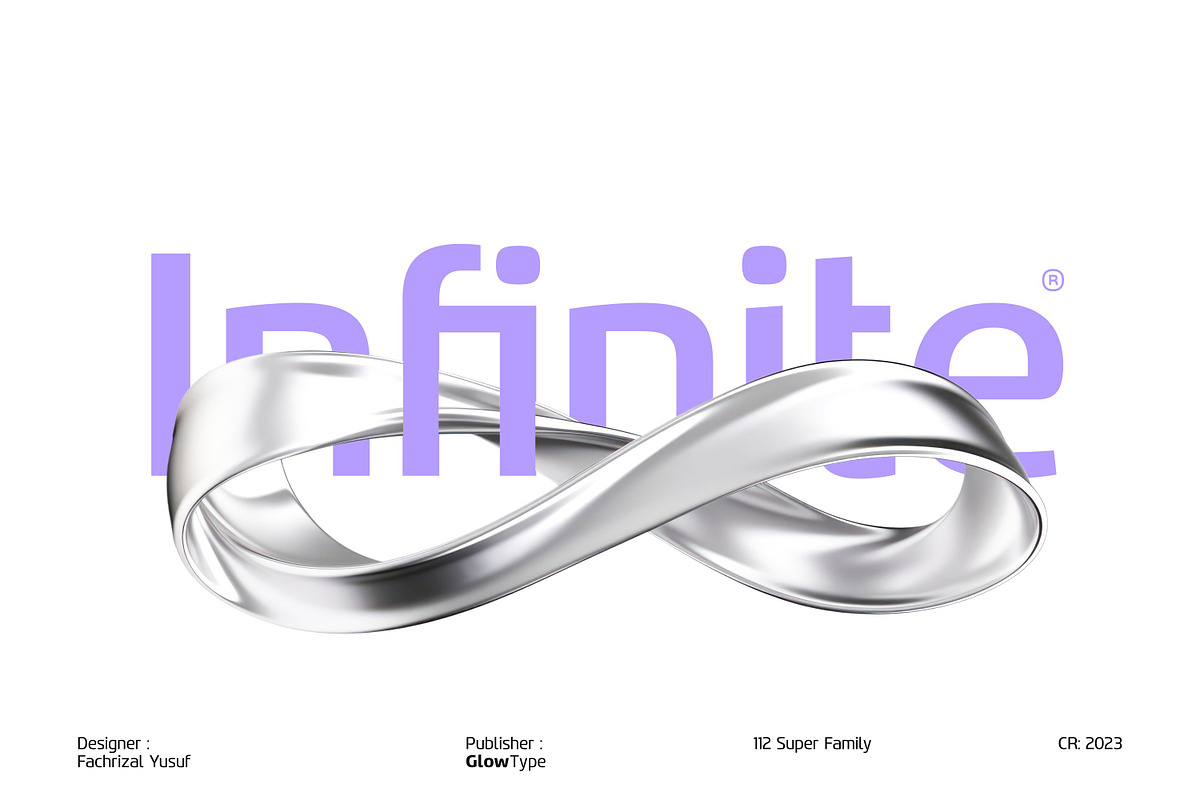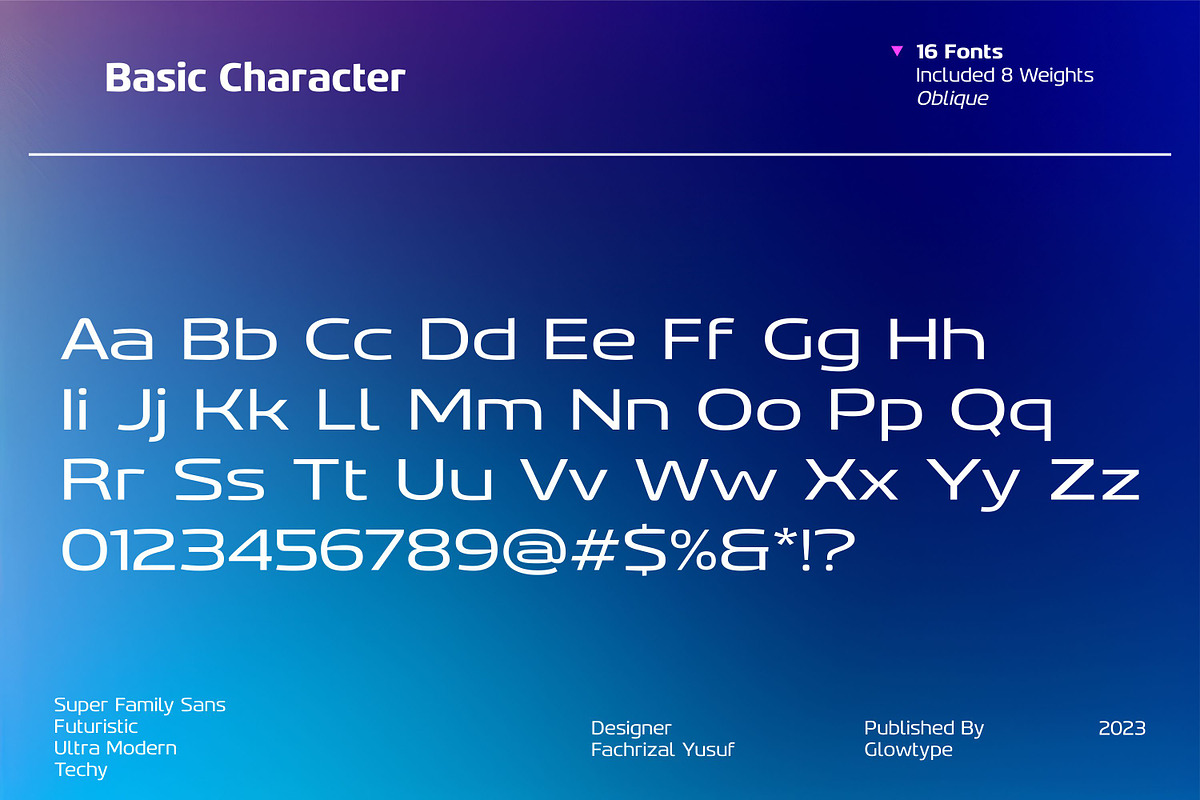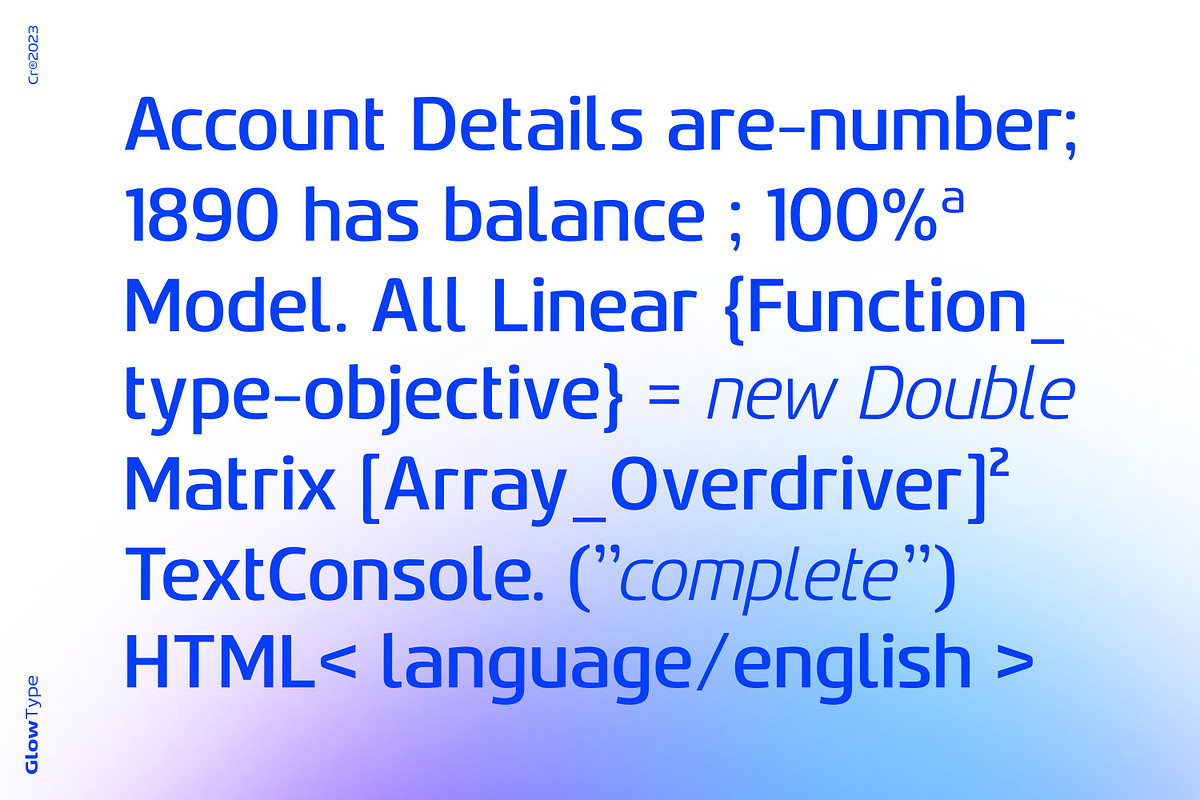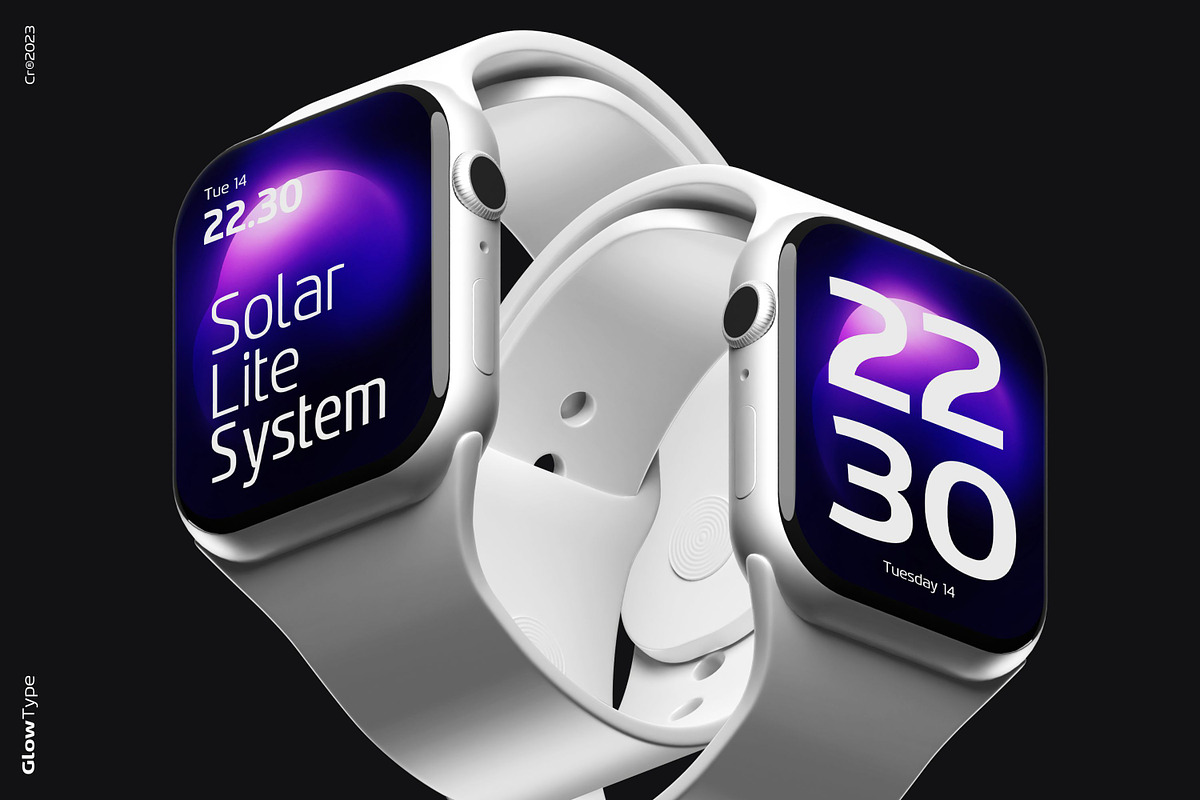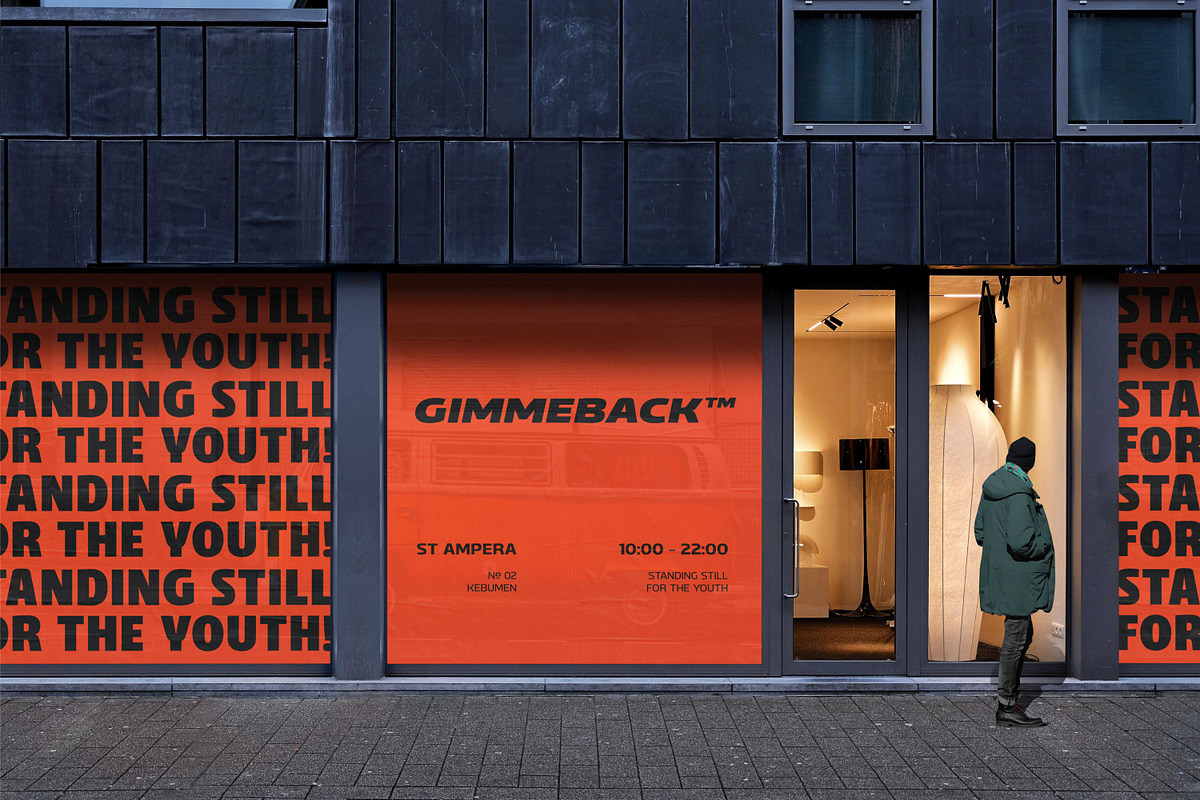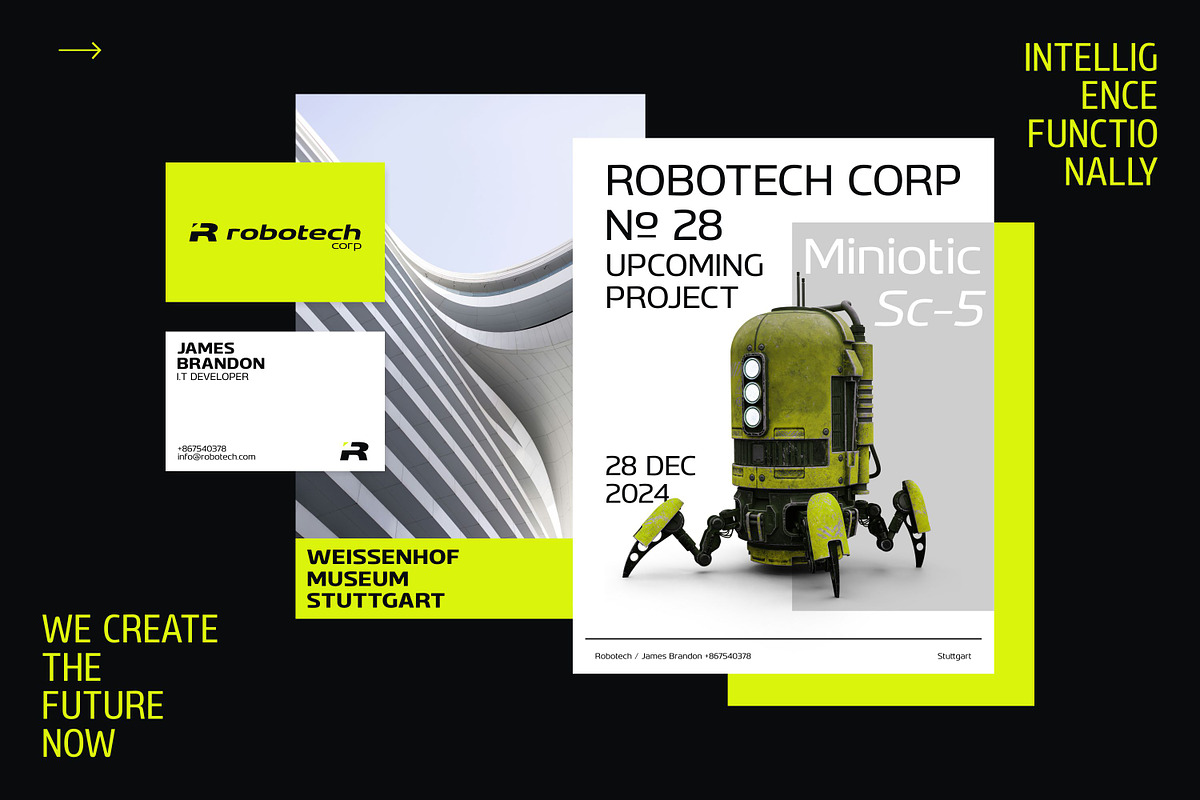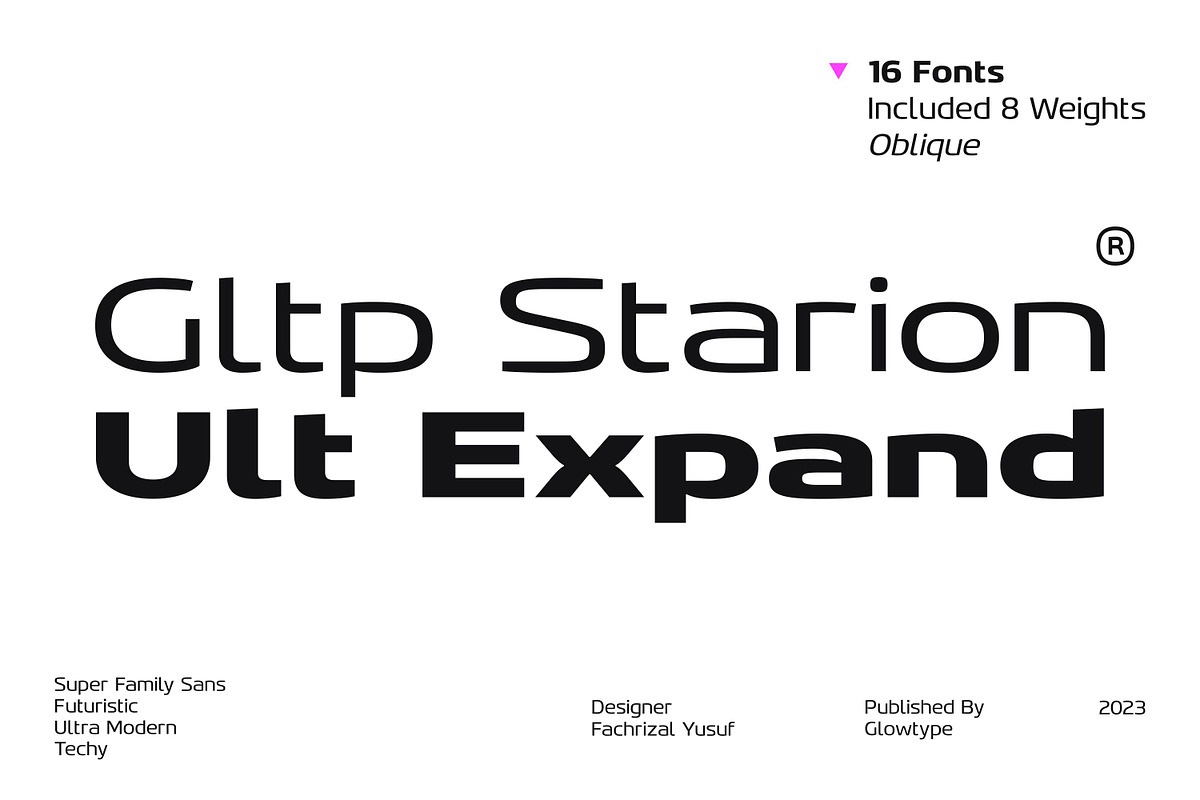
Gltp Starion Ultra Expanded
Gltp Starion Ultra Expanded is part of super family sans with open shapes and a technical vibe inspired by the needs of the automotive industry, technology, performance, and style.
-Futuristic -Ultra Modern -Techy
This type family seeks to fulfill the needs of designers looking to create a purposeful look for anything from automotive brands to space travel, aviation, technology, even for luxury watches or you name it.
Gltp Starion looks promising and functional in every aspect, marries performance with purpose and is designed to look good both on-screen and in print.